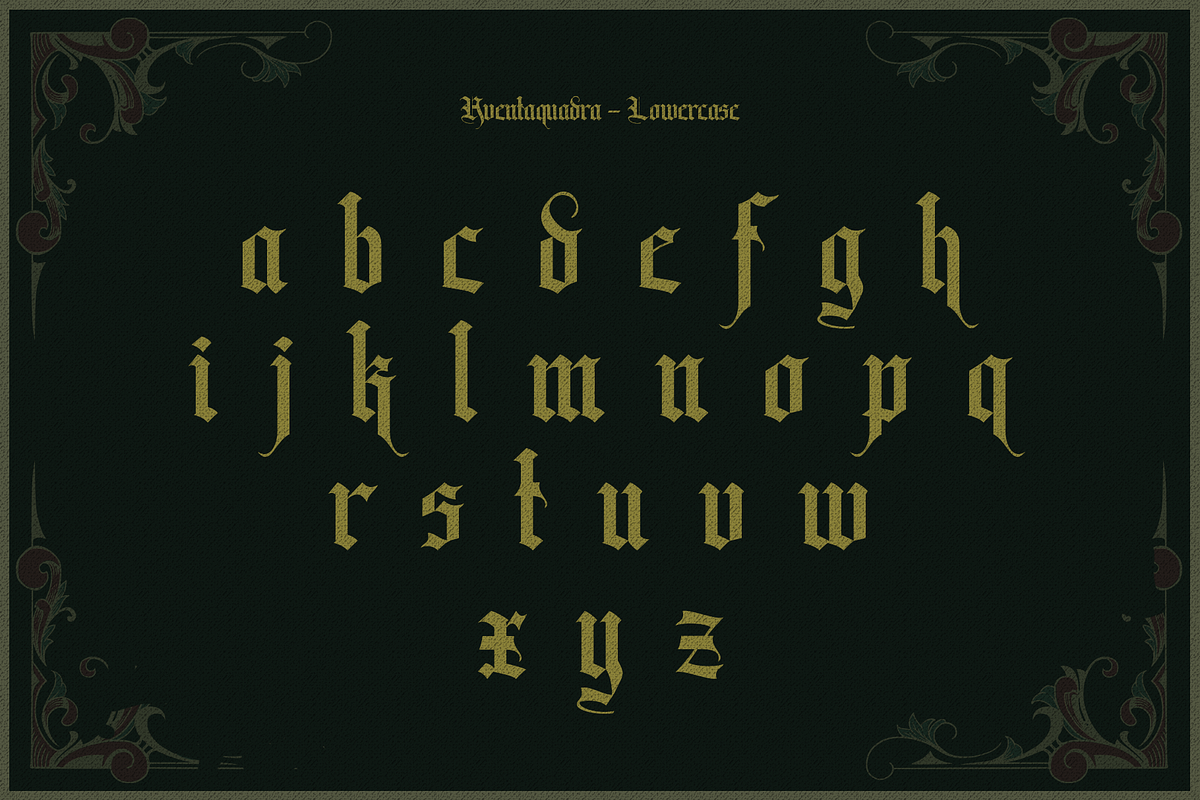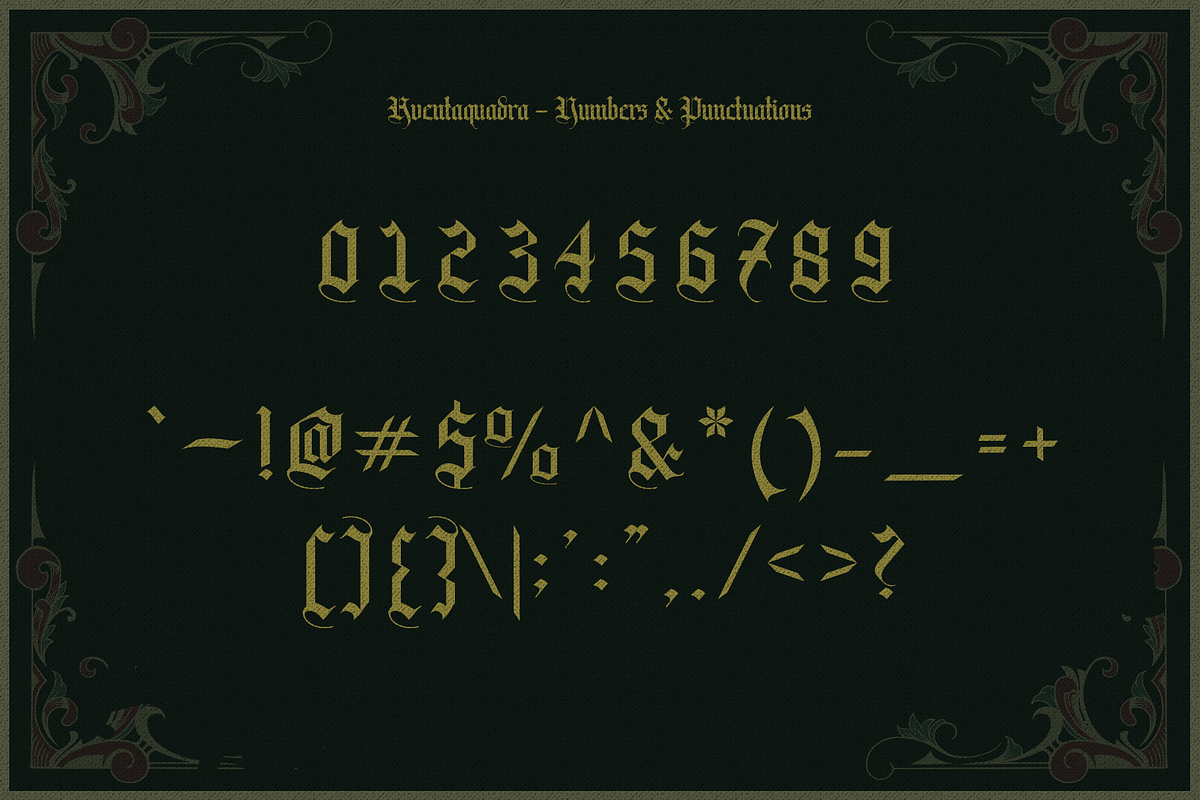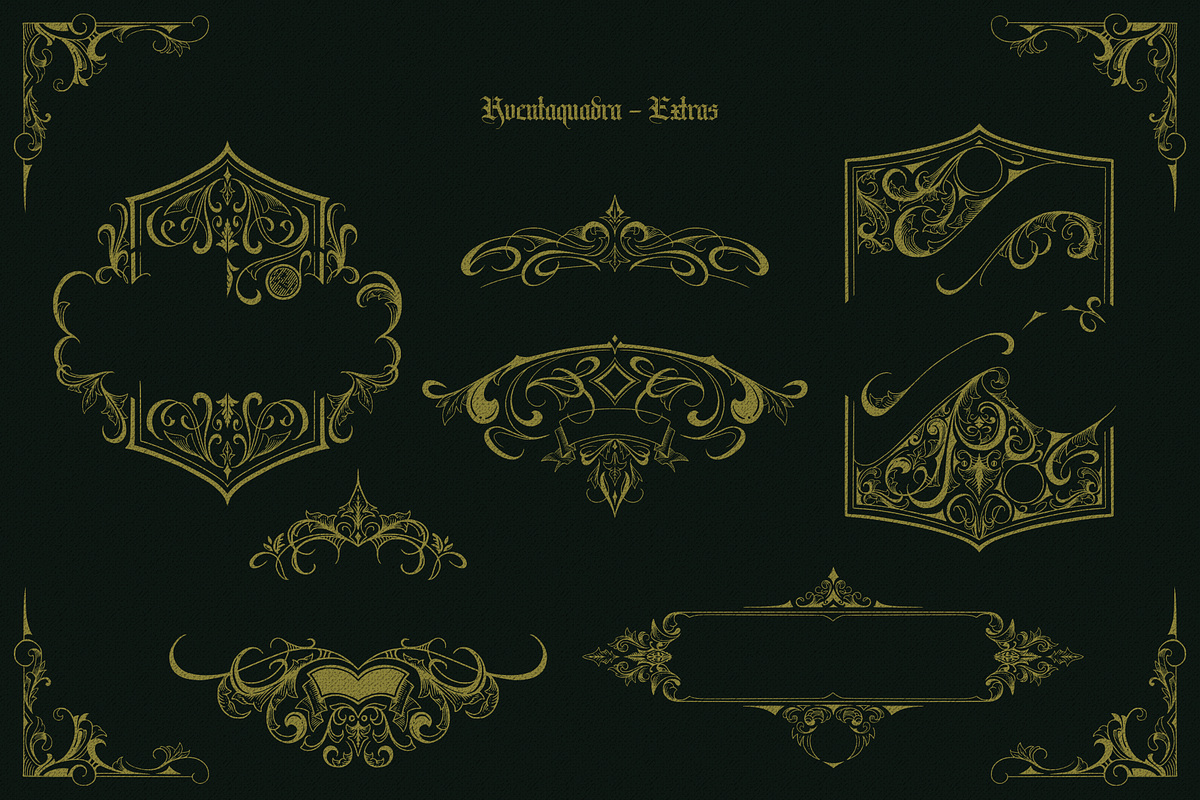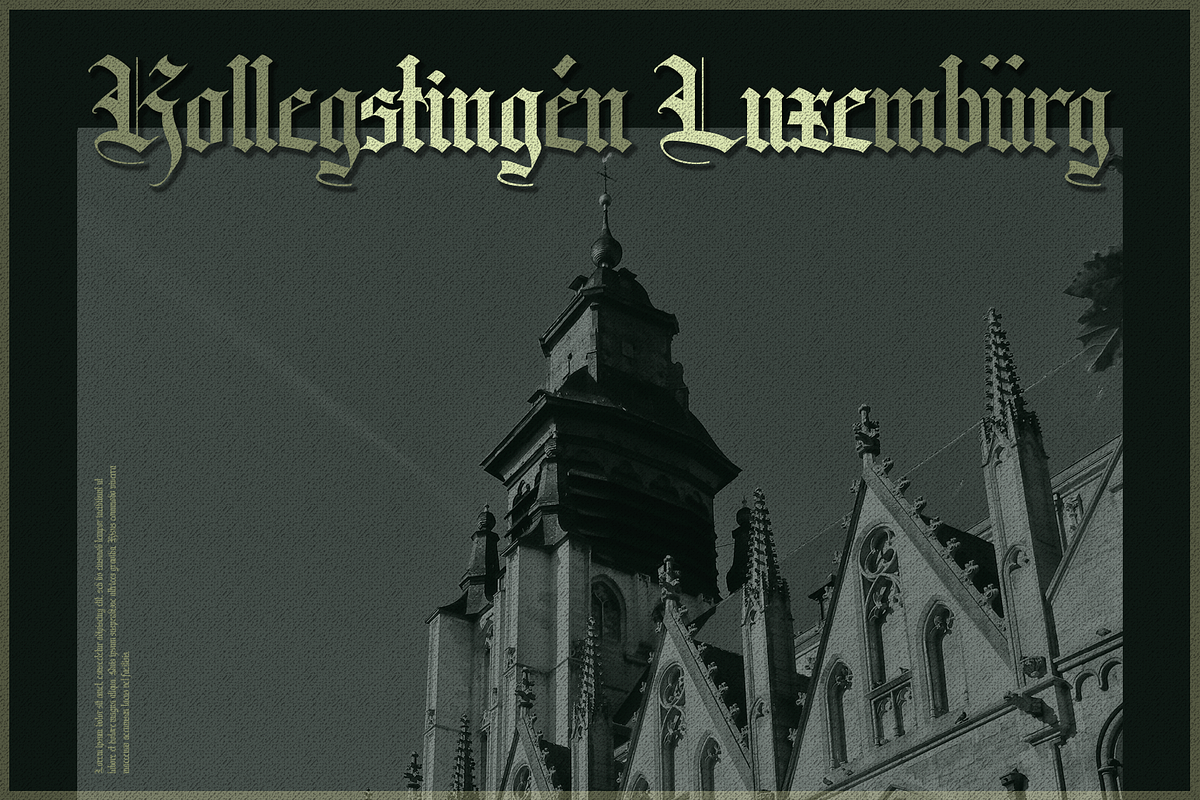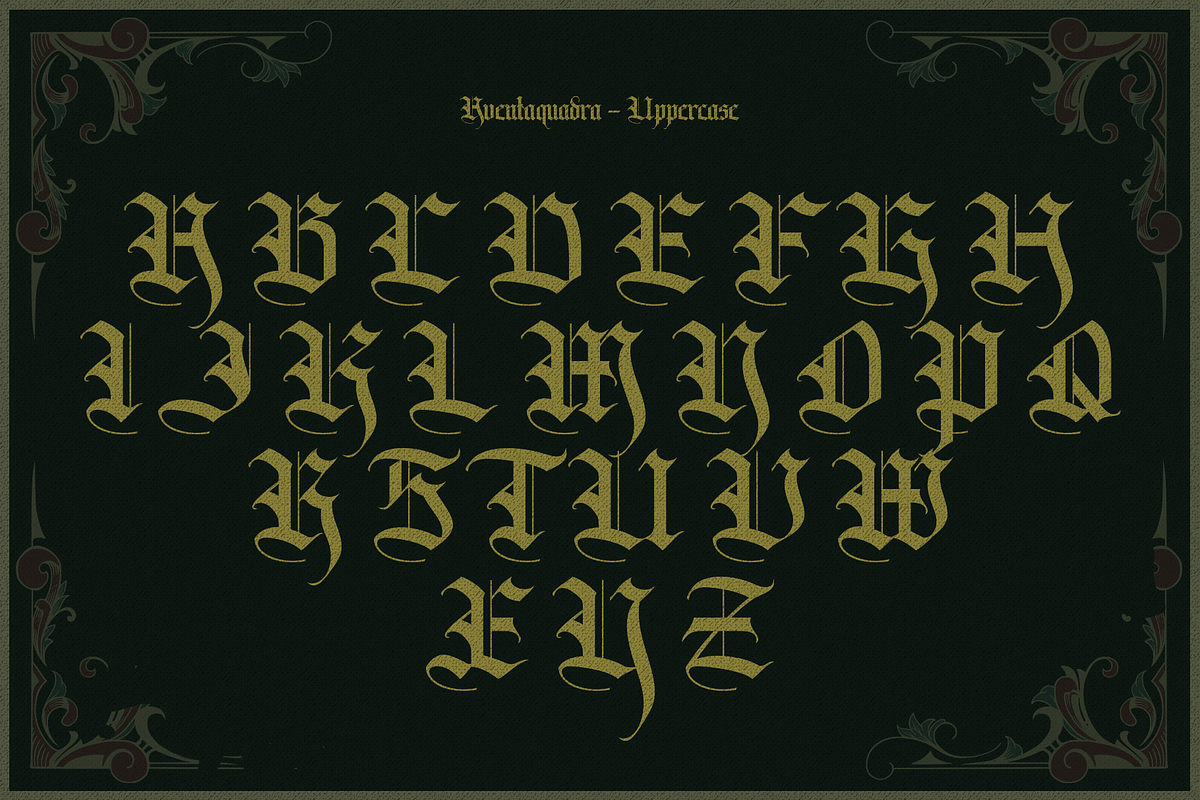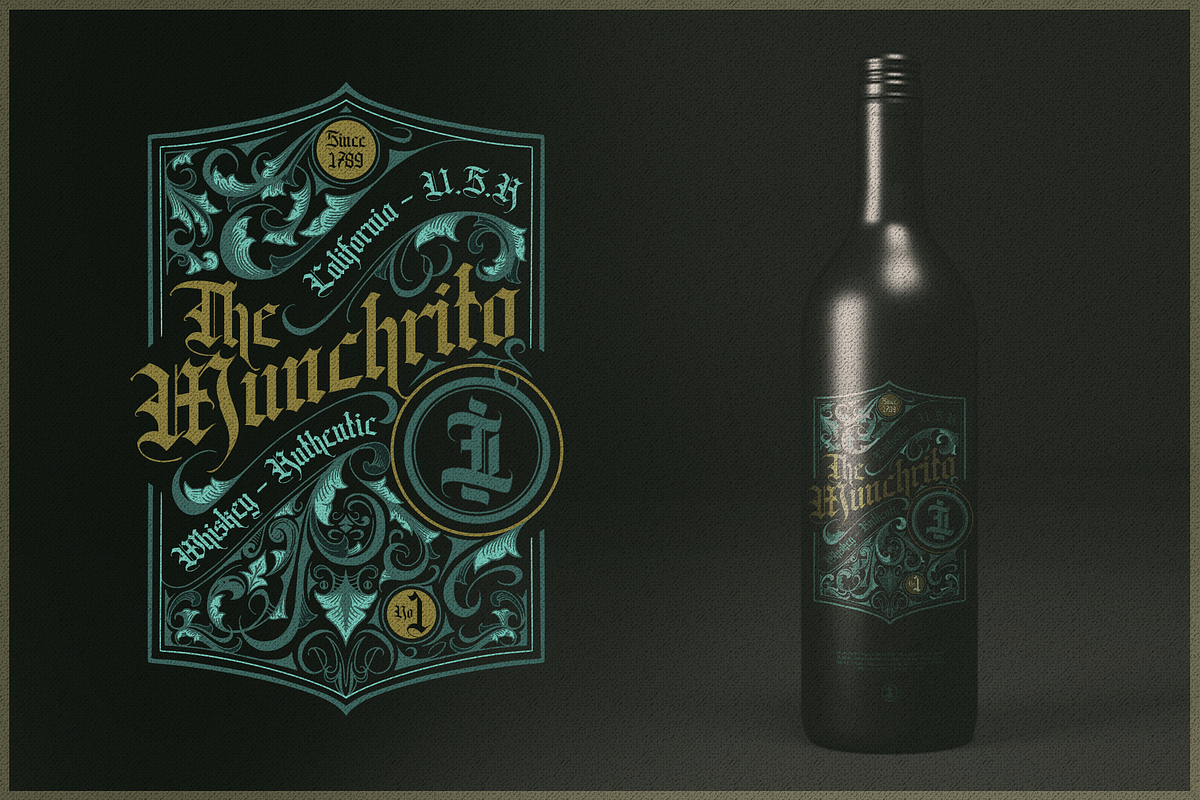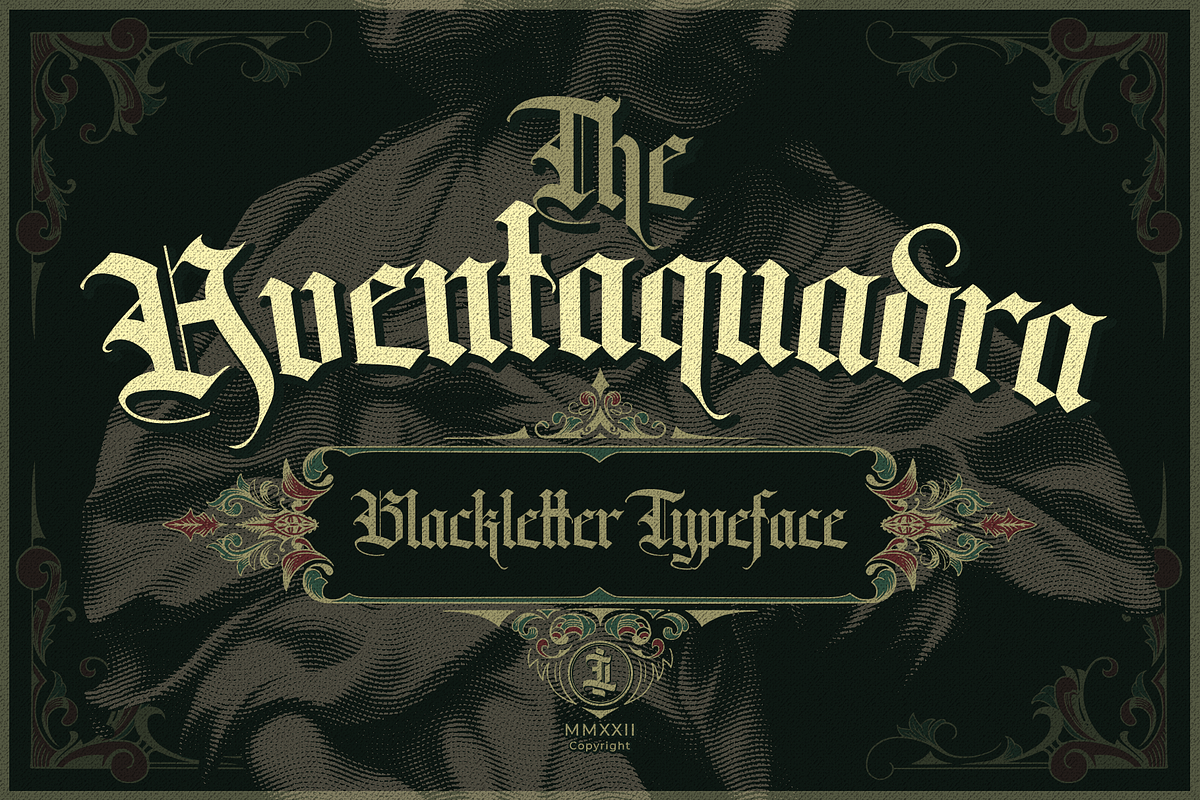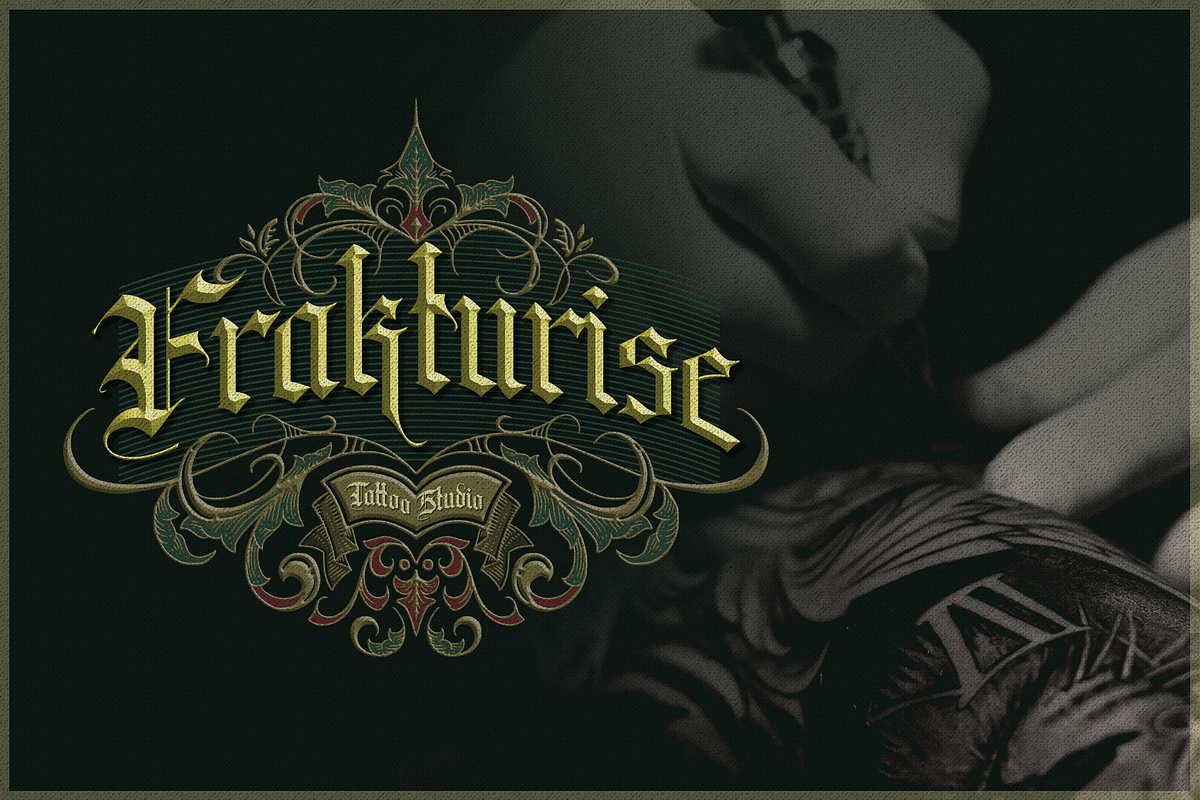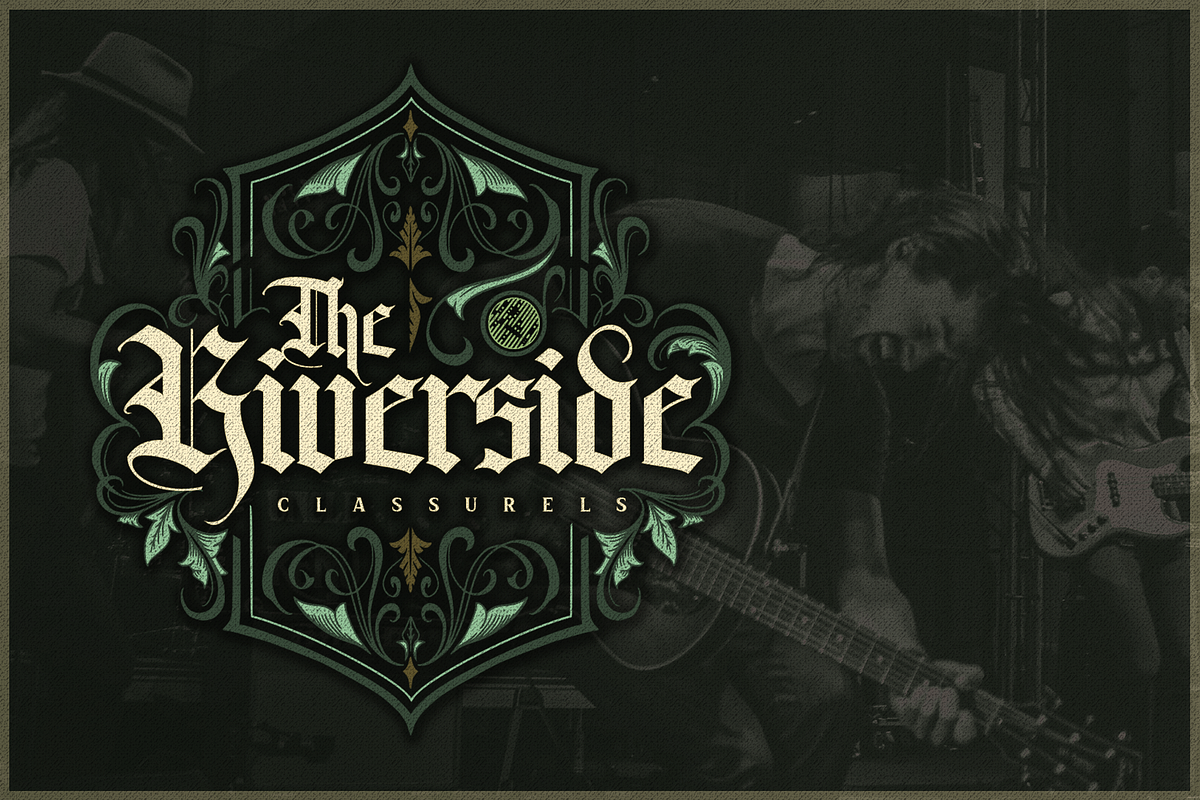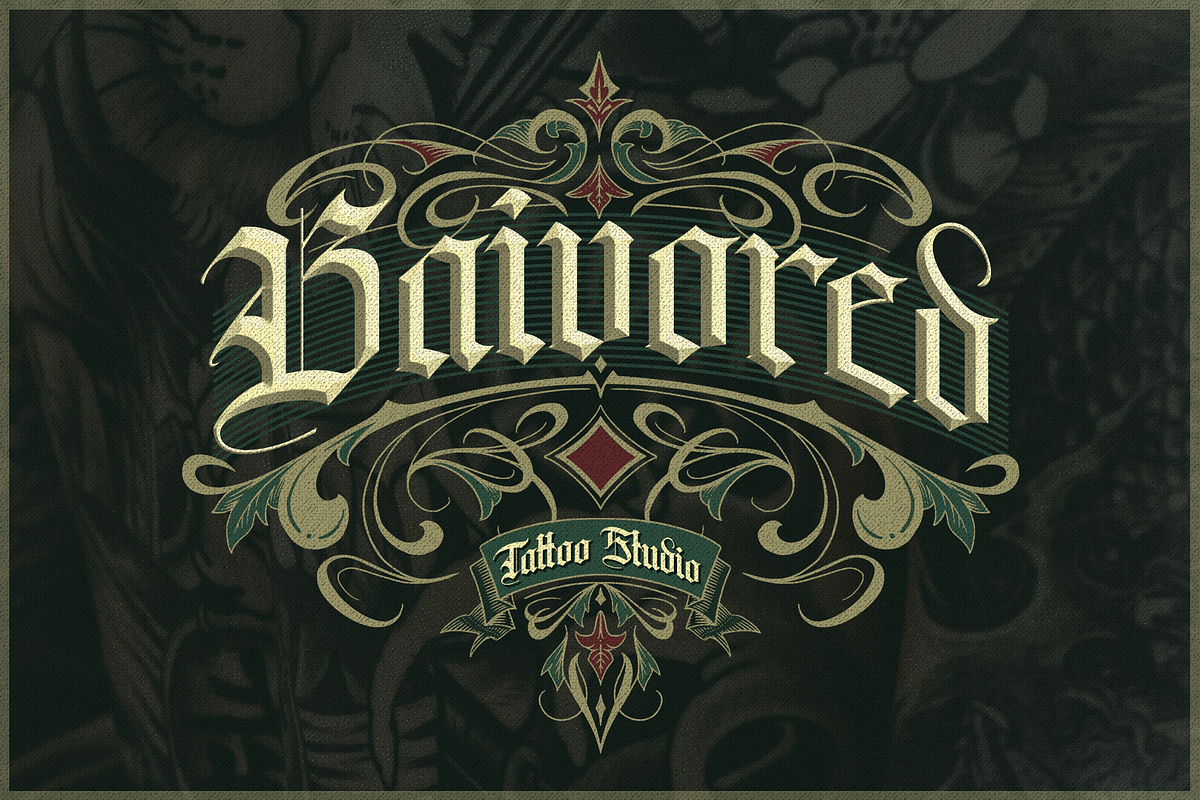
Aventaquadra
AVENTAQUADRA
Aventaquadra is a blackletter font that is pretty neat and doesn't have a lot of additional ornamentation on the strokes, so this font is still very thick with the original blackletter elements. Because this font is quite neat, it is still very good to make a lot of paragraphs or text, if legibility is lacking then the answer is "yes" because in fact blackletters have always been difficult to read, because of that in modern times only certain people like this type of font. , for example for tattoo studios, liquor labels etc.